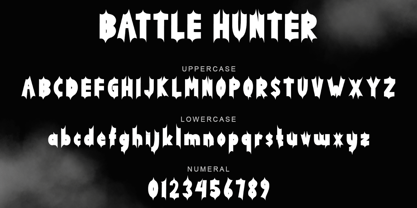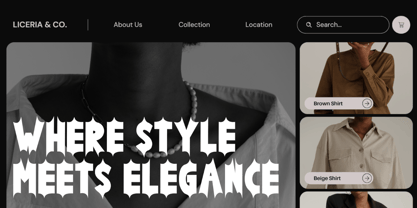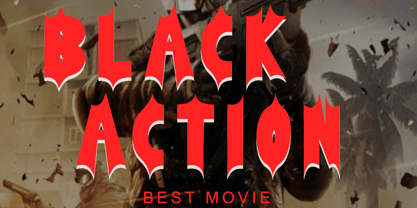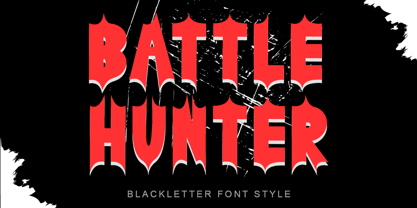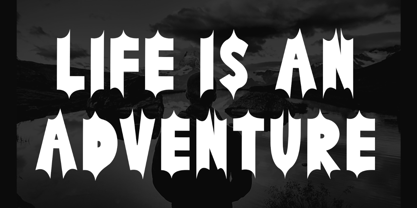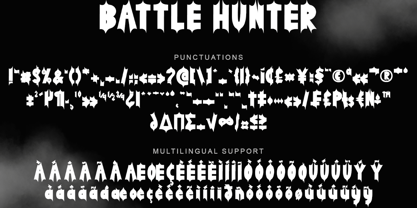
Battle Hunter
by Yoga Letter
The Battle Hunter Font Family was designed by Isroni Yoga Prasetya and published by Yoga Letter. Battle Hunter contains 1 styles. More about this family
"Battle Hunter" is an elegant and professional blackletter font. It comes with capital letters, lowercase letters, numbers, punctuation, and multilingual support. It is perfect for use in movie titles, business branding, stickers, logos, prints, book titles, magazines, comics, Easter, summer, spring, and more.
Designers: Isroni Yoga Prasetya
Foundry: Yoga Letter